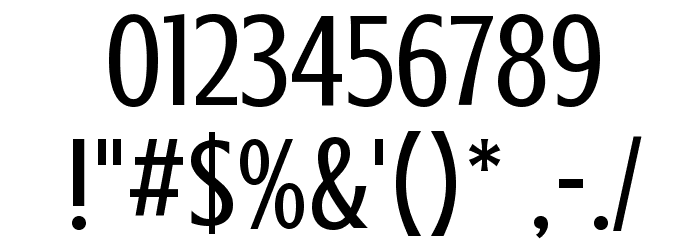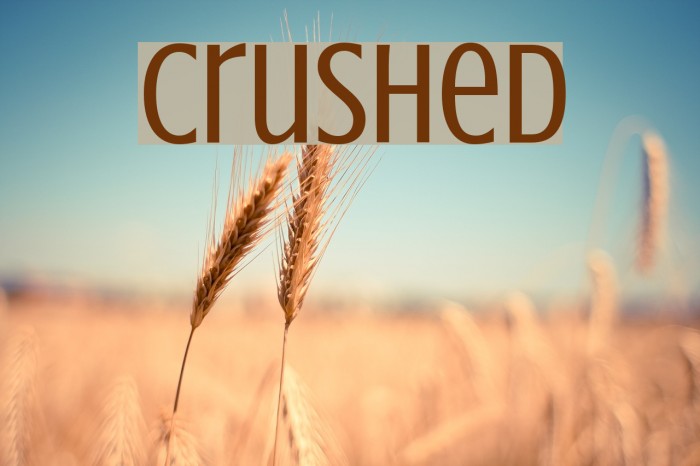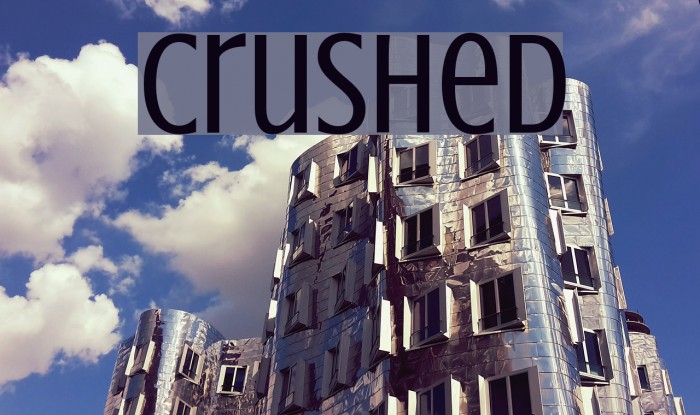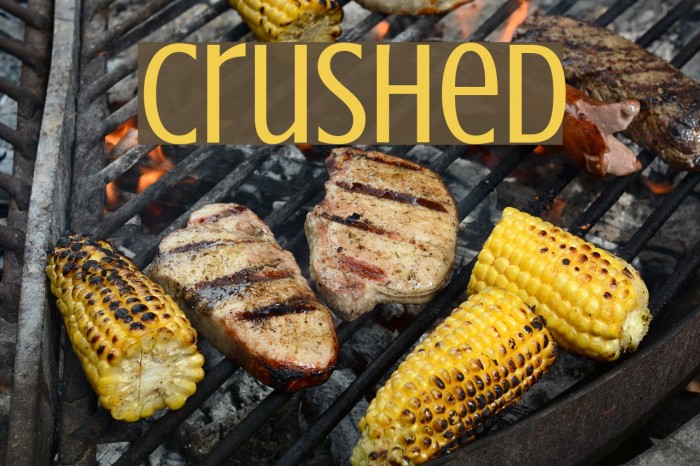
Crushed Font
This font features a clean and modern sans-serif style with a slightly condensed appearance. The characters are uniformly structured, providing a sleek and professional look. The uppercase letters are tall and commanding, while the lowercase letters maintain a consistent height, ensuring readability. The numerals are straightforward and align well with the overall design, making them suitable for various applications. Special characters are distinct and integrate seamlessly with the rest of the set. The font's simplicity and clarity make it versatile for both digital and print media.
A modern, clean sans-serif font with a slightly condensed style.
- Proposed Projects: Ideal for branding, editorial design, web interfaces, and corporate materials.
- Category: Sans-Serif
- Width: Condensed
- Use Case: Headlines, Body text, Logos